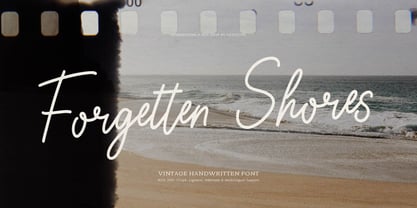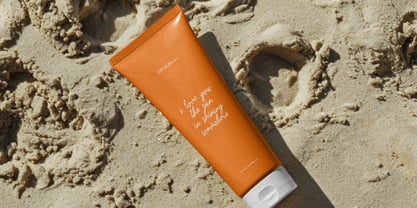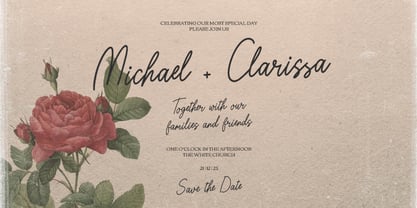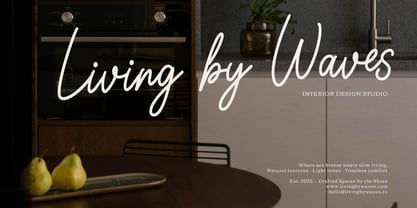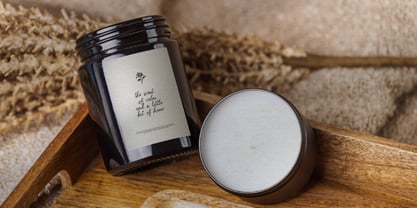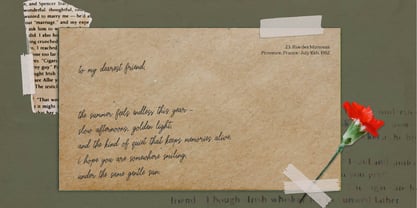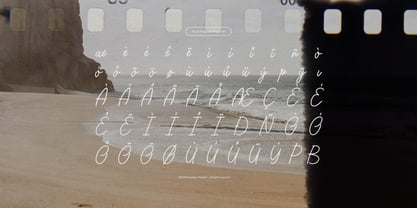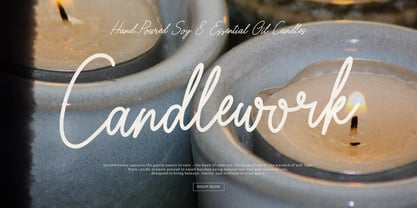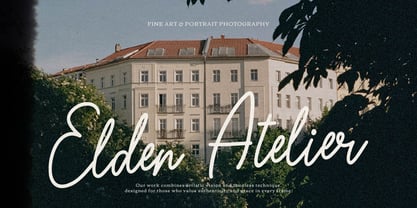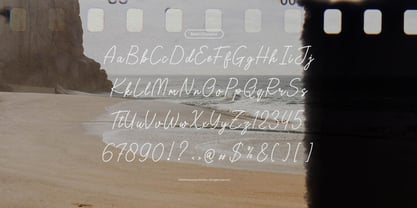
Forgotten Shores
Forgotten Shores | Vintage Handwritten, from Gracetypestudio, suitable for any projects such as: logos, branding projects, homeware designs, product packaging, mugs, quotes, posters, shopping bags, t-shirts, book covers, name card, invitation cards, greeting cards, label, photography, watermark, special events, and all your other lovely projects that need a Vintage taste.